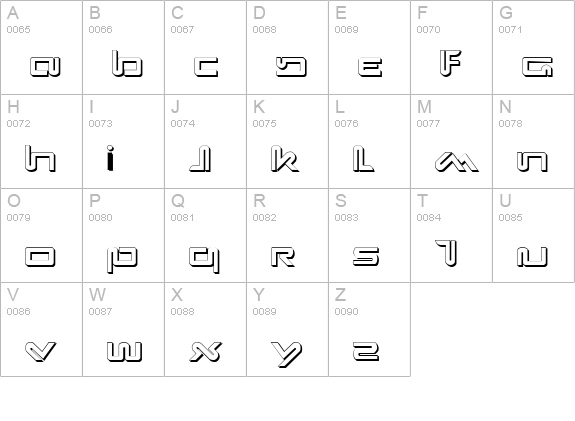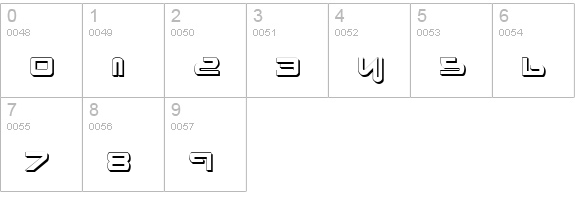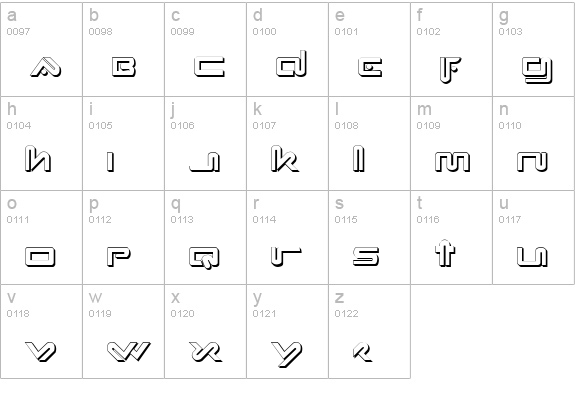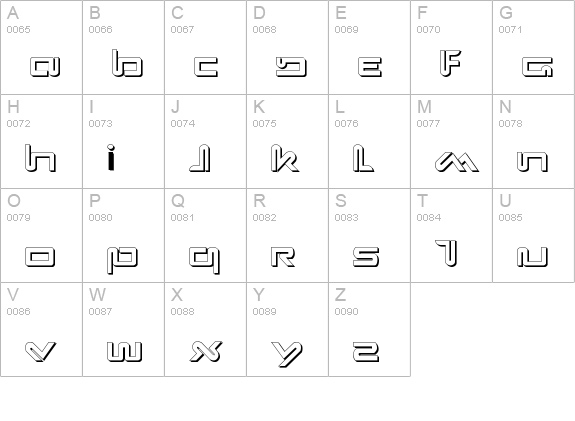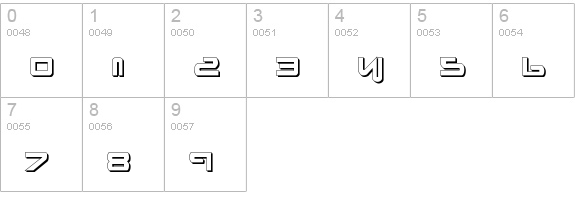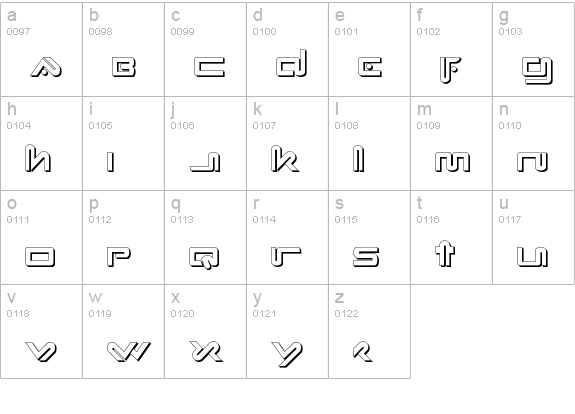
Xephyr Shadow Font Details
Xephyr Shadow is a unique and eye-catching font that combines modern design with a touch of elegance. This font features a shadow effect that adds depth and dimension to any text it is applied to, making it stand out and command attention. Whether used for titles, headlines, or branding, Xephyr Shadow is sure to leave a lasting impression. The best part about Xephyr Shadow font is that it is completely free to download at FontsMarket.com. This means that you can add this stylish font to your collection without any cost, making it a valuable asset for designers, creatives, and anyone looking to enhance their projects with a touch of sophistication. Don't miss out on the opportunity to elevate your designs with Xephyr Shadow font, available for free at FontsMarket.com. Download it today and start creating stunning visuals that truly pop.